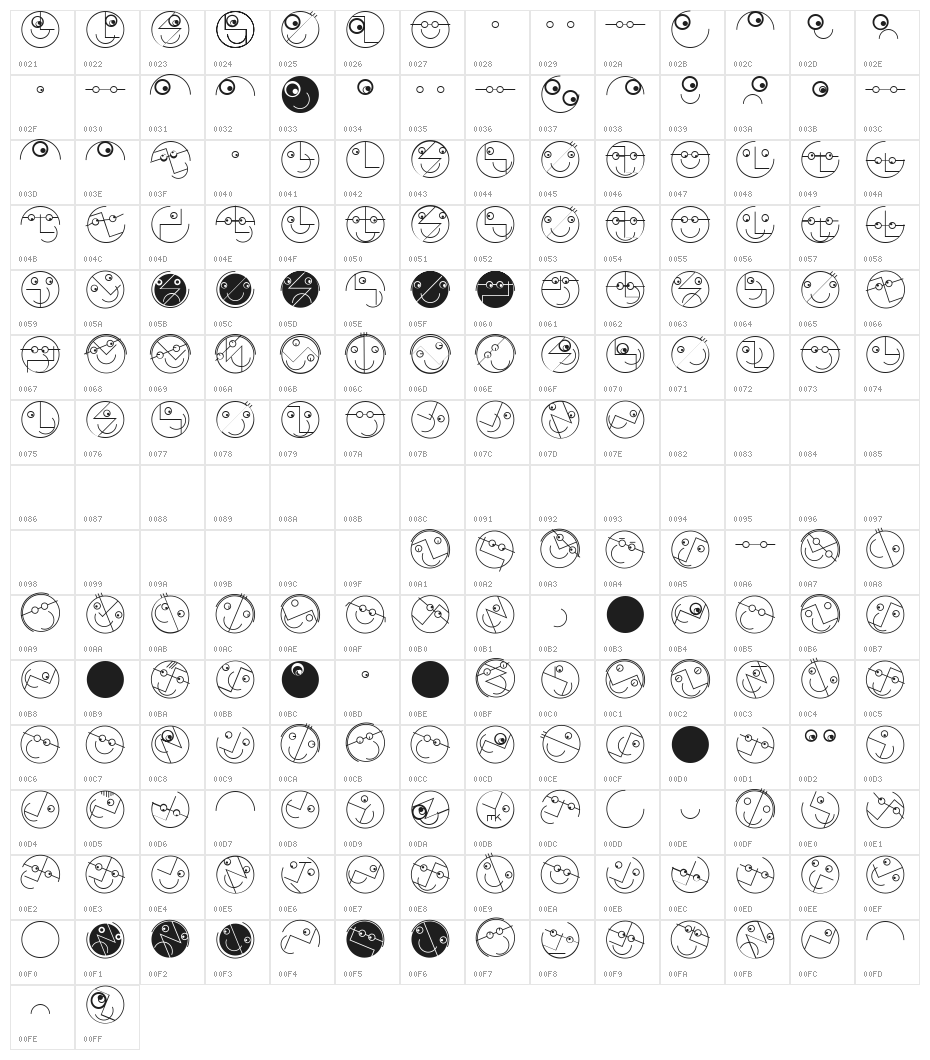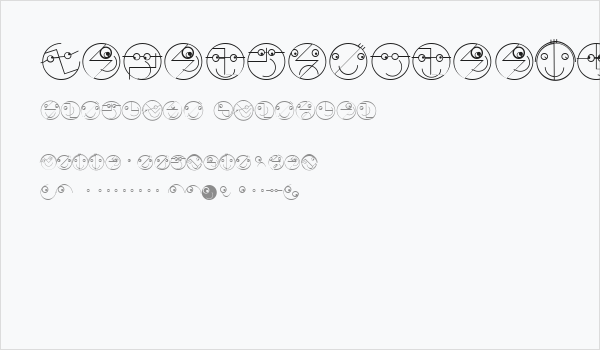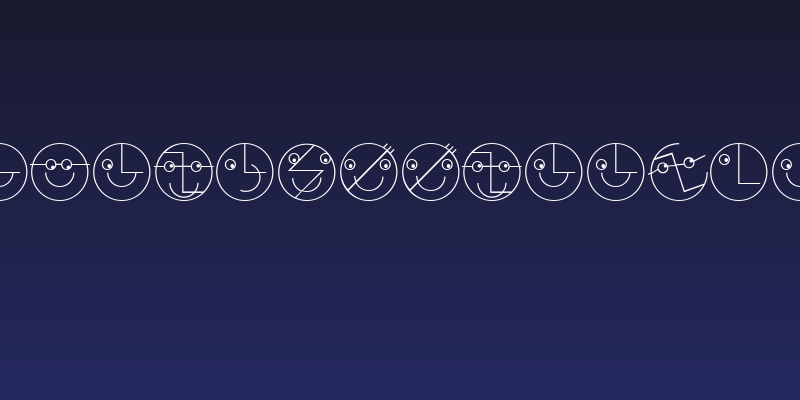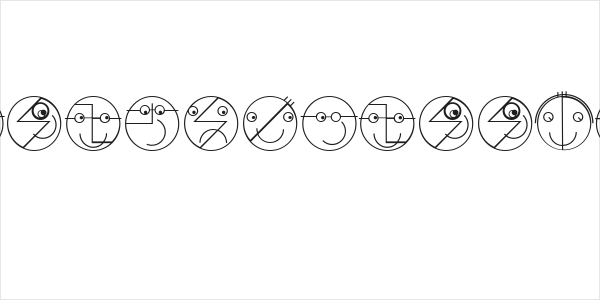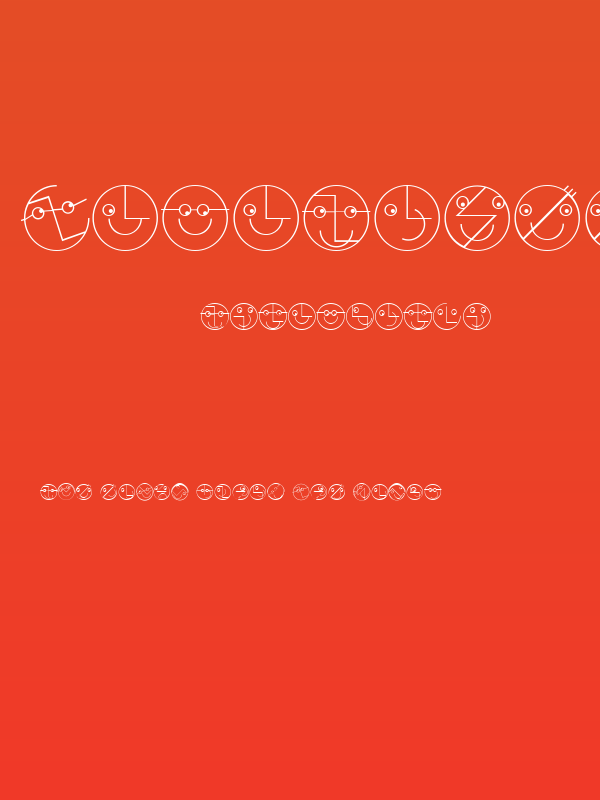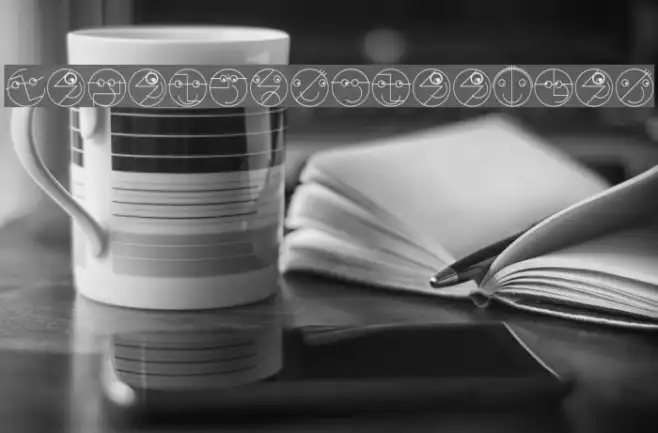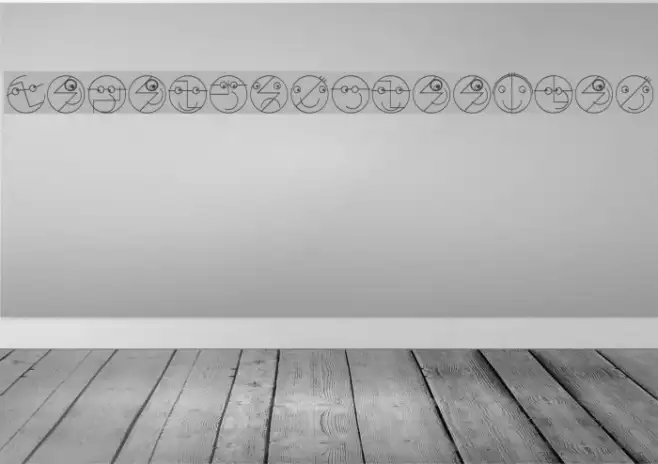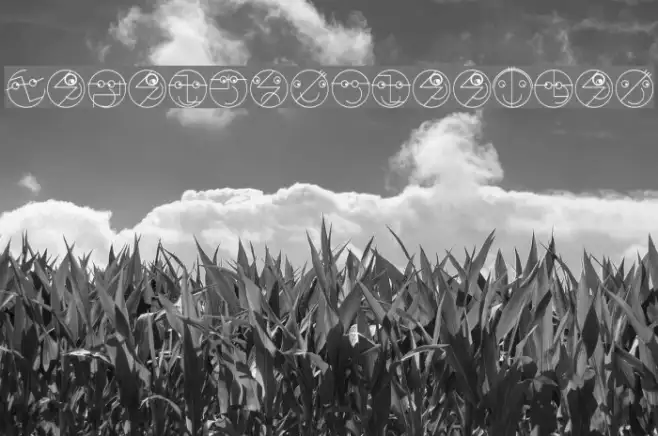
LogoFacesToolbox Font
LogoFacesToolbox Description
This is a highly creative and playful font that transforms each character into a unique face within a circular boundary. Each letter and symbol is designed with facial features, such as eyes and mouths, giving the font a whimsical and engaging appearance. The circular design of each character adds a uniformity, while the varied expressions and features provide a sense of individuality and fun. This font is perfect for projects that require a light-hearted and imaginative touch, making it ideal for children's materials, playful branding, or artistic endeavors. The design is intricate, with a focus on creating distinct personalities for each character, ensuring that the font stands out in any application.
| Overall Style | Whimsical |
| Use Case | Logos, Artistic projects, Children's materials |
| Proposed Projects | Ideal for children's books, playful branding, artistic projects, and creative advertising. |